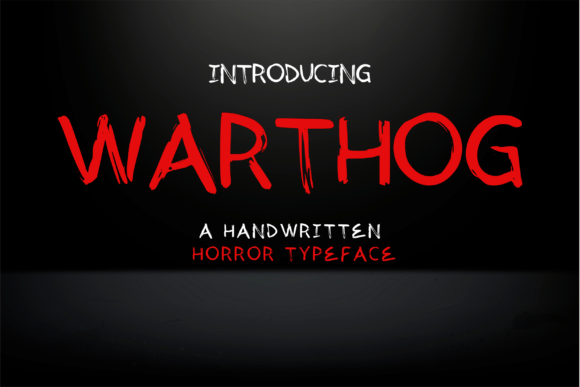
Introducing Warthog Font, a hauntingly captivating addition to your font collection. Created by The Tenacious Type Studio, this horror script font will send shivers down your spine with its menacing grace and eerie charm. As you delve into its pages, you'll uncover a world of mystery and suspense, where elegant curves and sharp angles hint at the darkness that lurks just beneath the surface.
Warthog Font is a mesmerizing fusion of timeless calligraphy and the fear of the unknown. Its modern twist sets it apart from traditional fonts, making it perfect for those seeking a unique and spine-chilling reading experience. Whether you're designing a horror-themed website, creating captivating book covers, or crafting bone-chilling party invitations, this font will add a touch of macabre elegance to your projects.
With its rich and expressive characters, Warthog Font brings words to life in a way that will captivate your audience. Each letter is crafted with meticulous detail, ensuring that every word you write exudes a sense of foreboding and intrigue. Let your content take on a new dimension as Warthog Font breathes life into your words, leaving a lasting impression on anyone who dares to read them.
But Warthog Font isn't just about looks; it's also about functionality. With its extensive language support and versatile compatibility, this font seamlessly integrates into any design project. Whether you're working on a website, a poster, or a social media campaign, Warthog Font will enhance your message and draw in your audience with its captivating allure.
Imagine the impact of Warthog Font on your next project. Picture the spine-tingling anticipation it will create as readers are drawn into a world of shadows and suspense. Feel the power of its emotional resonance as your words take on a life of their own, leaving an indelible mark on the minds of those who encounter them.